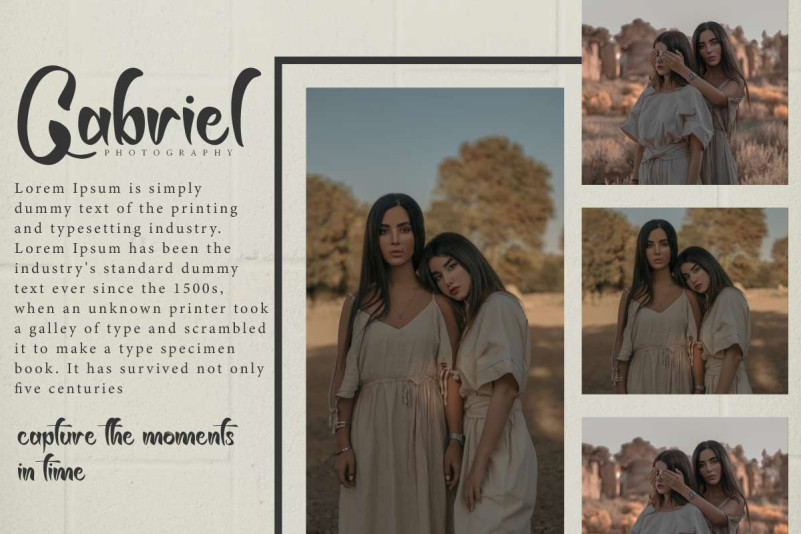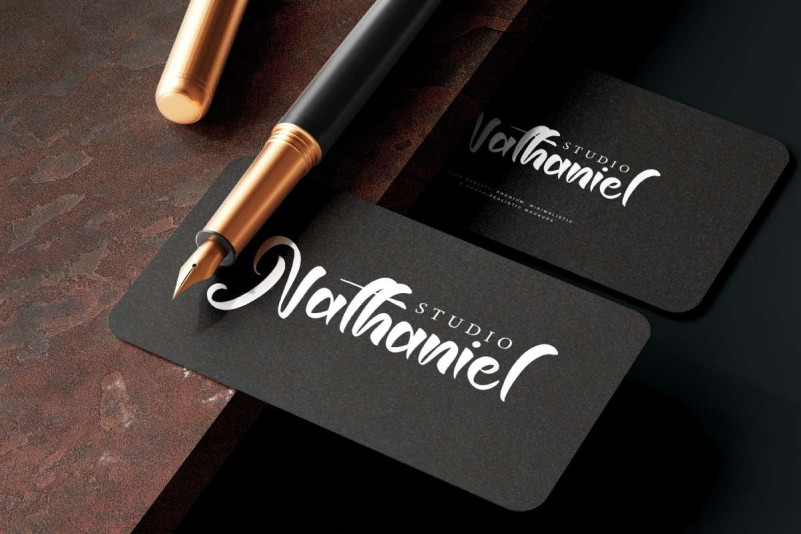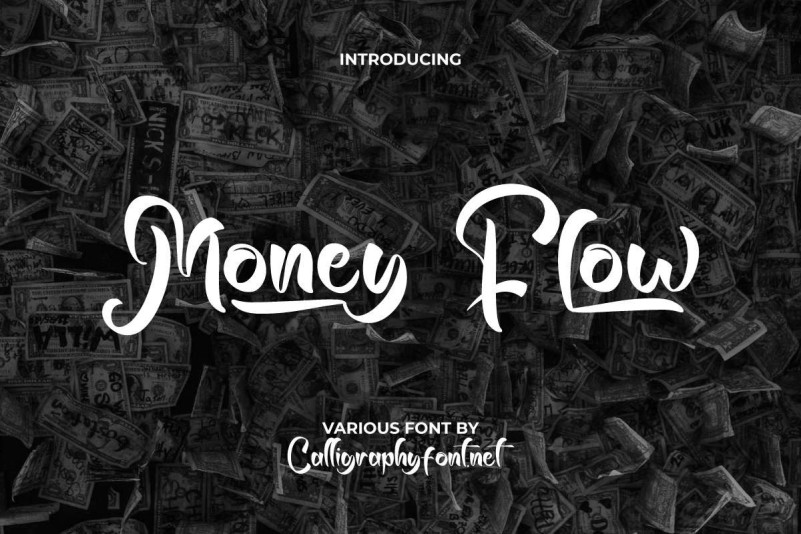
Money Flow Font
Money Flow Brush Font is a playful brush display font, created by CalligraphyFonts. This is one of many types writing that carries a vintage vibe to your designs that will be perfect for any creative project, such as billboard, brand logo, business card, flyer, header, label, packaging design, poster, quotes, screen print, stationery, and much more.
Money Flow Font has an uneven thickness with a curved line drawn at each corner of the letter, this makes it unique and stands out and will be able to present perfection in form and legibility. It will be great for any industry, including : accessories, advertisement, author, café, fashion brand, furniture, handicraft, interior design, photography, printing, publishing, restaurant, etc.